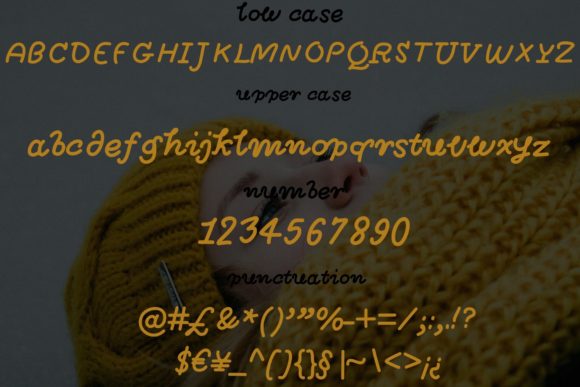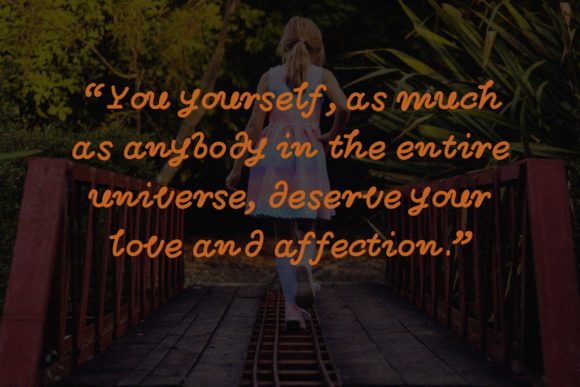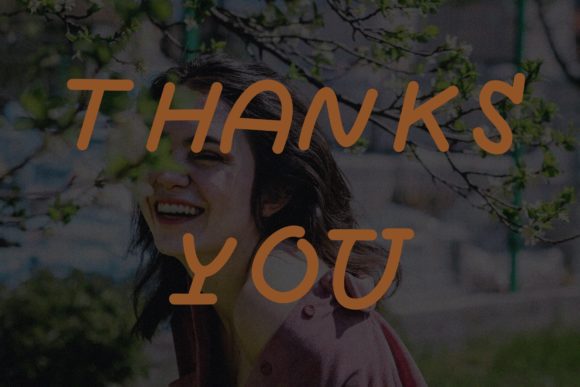
Younger Font
About Younger Font
Younger: A Sweet and Friendly Handwritten Font
Introducing Younger, a font that exudes sweetness and friendliness in every stroke. With its natural and unique style, Younger is a perfect fit for a wide range of designs. There are no limits to the creative possibilities with this font; your imagination is the only boundary!
The charm of Younger lies in its sweet and friendly demeanor. Each letter is crafted with care, capturing the essence of warmth and approachability.
Designing with Younger is a delightful experience. Its handwritten touch and unique characters bring authenticity to your creations, making them stand out with a welcoming and friendly appeal.
Younger complements various projects seamlessly. Whether you’re designing cheerful greetings, playful invitations, inspiring quotes, or any other design that requires a touch of friendliness, Younger delivers with charm.
Unleash your creativity with Younger. Its natural and unique style allows you to create designs that resonate with warmth and joy, leaving a positive impact on your audience.
Embrace the magic of Younger’s sweet and friendly aura. Its approachability adds a touch of authenticity to your projects, creating designs that connect with people on a personal level.
In conclusion, Younger is more than just a font; it’s a heartwarming companion that brings sweetness and friendliness to your designs. With its natural and unique style, Younger opens the door to endless creative possibilities. Embrace its warmth and let it shine in your favorite projects and beyond. There are no boundaries to what you can achieve with Younger; your imagination is the key to unlocking its true potential. For designs that exude sweetness and friendliness, Younger is the font that brightens hearts and brings joy to every creative endeavor.